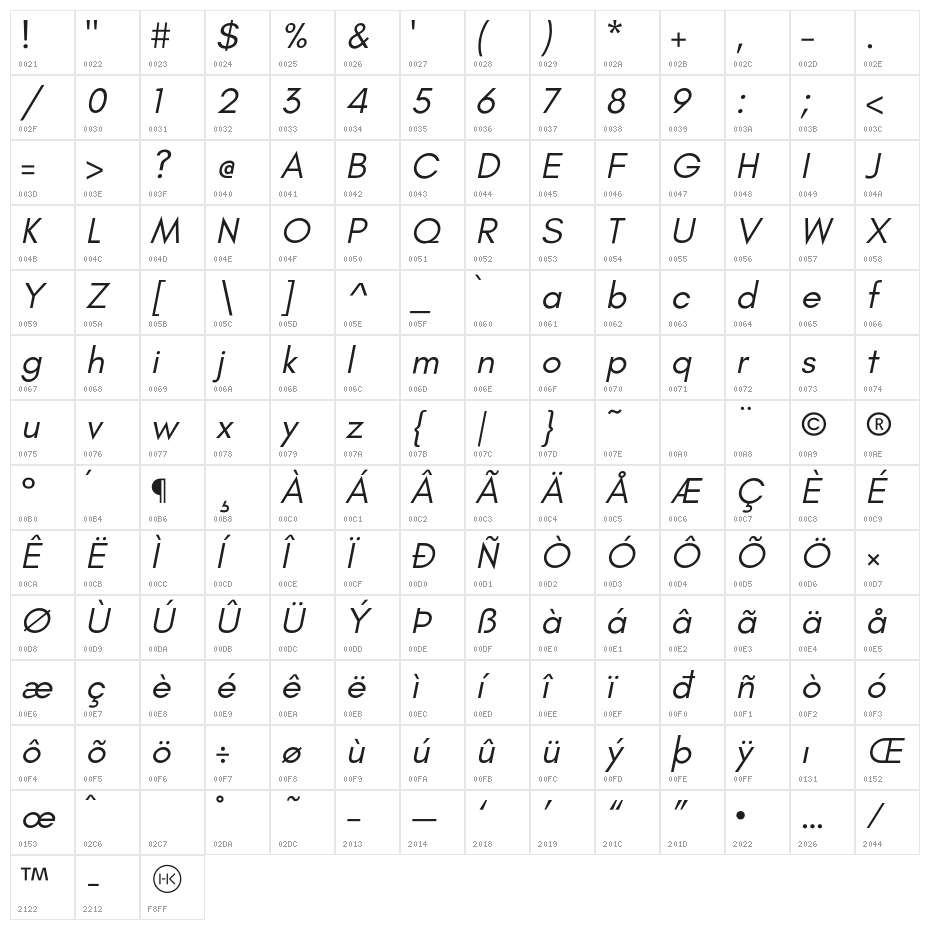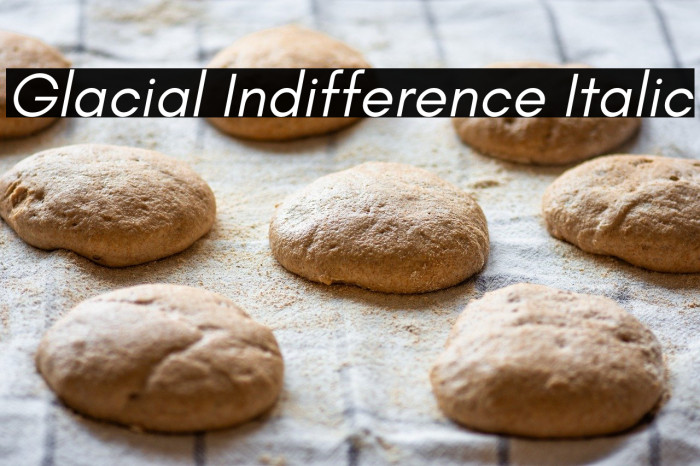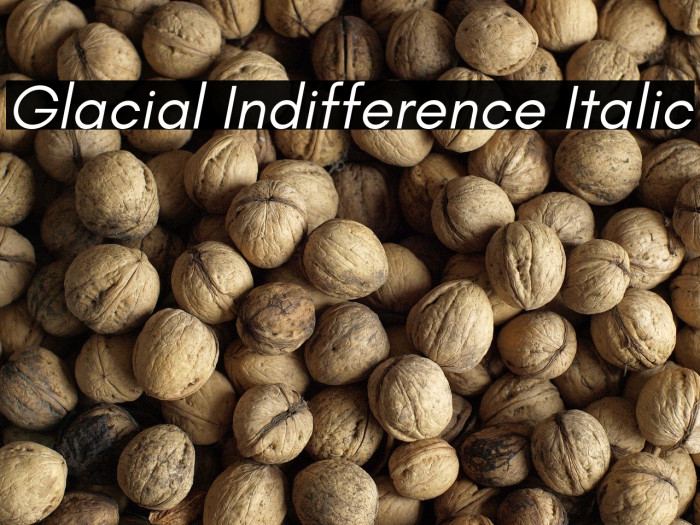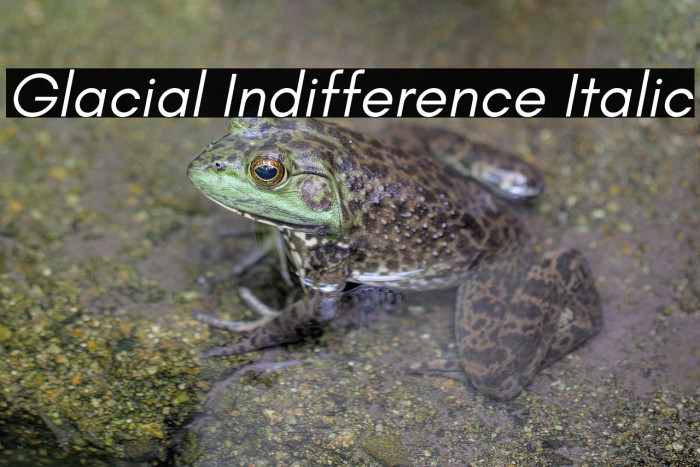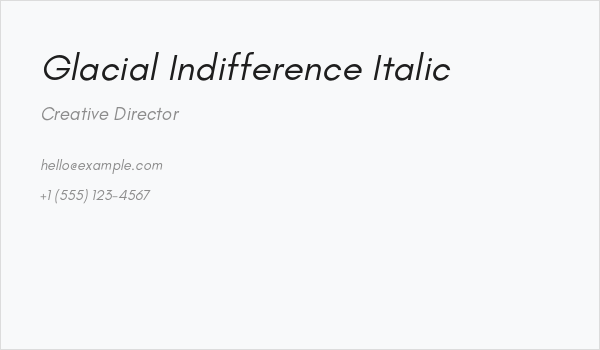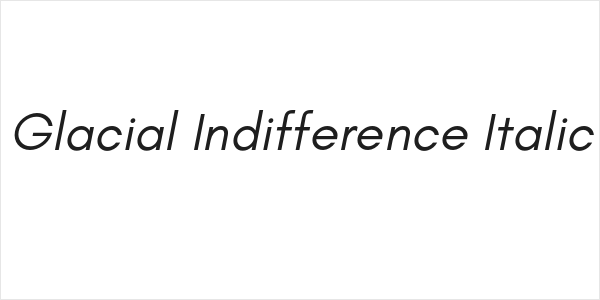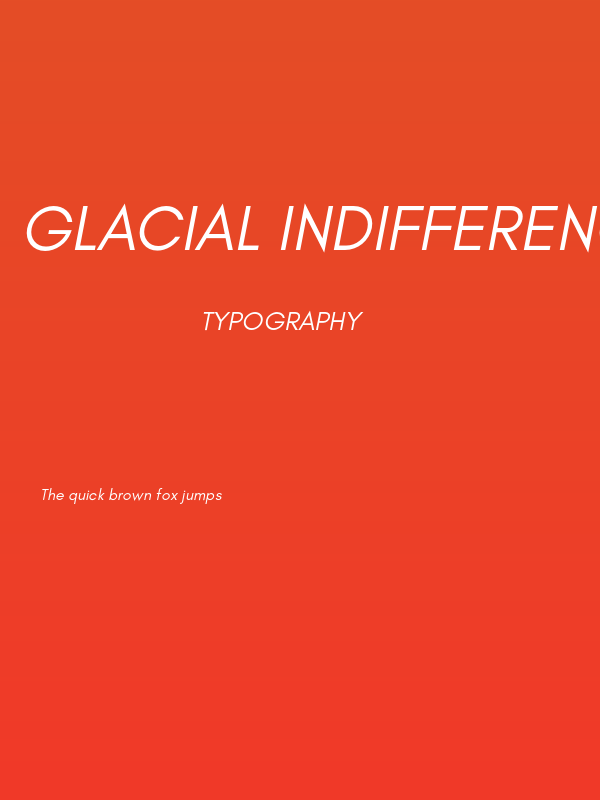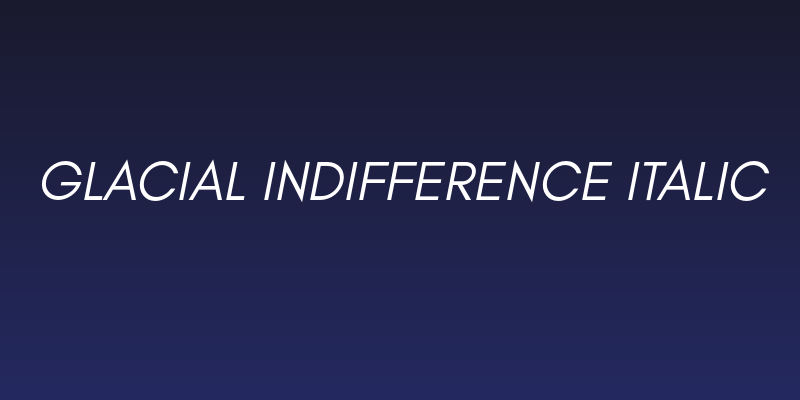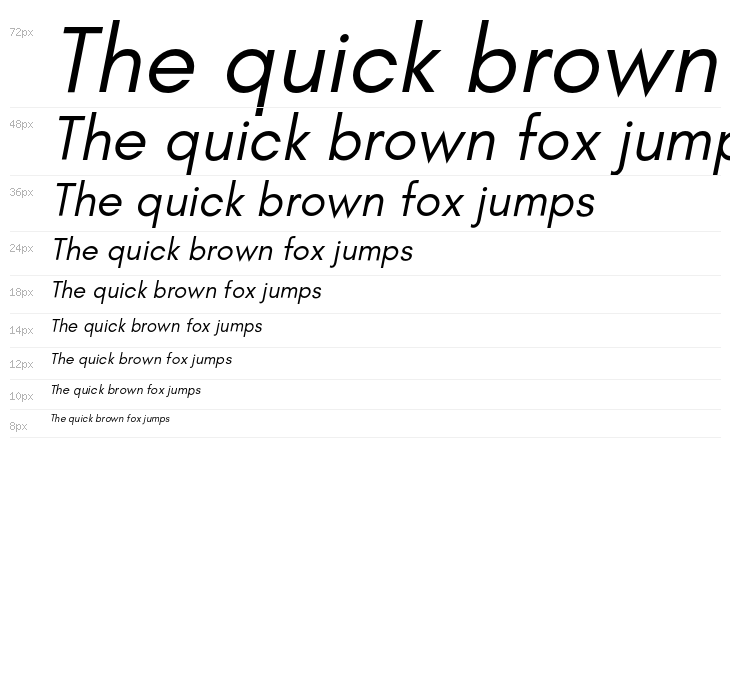
Glacial Indifference Italic Font
Glacial Indifference Italic Description
This typeface features a clean and modern sans-serif design with a subtle italic slant, giving it a sleek and contemporary appearance. The characters are well-proportioned, with a consistent stroke width that provides a balanced and harmonious look. The uppercase letters are bold and assertive, while the lowercase letters maintain a friendly and approachable feel. The numerals are clear and legible, making them suitable for various applications. The special characters are well-integrated, ensuring versatility in design projects. Overall, this font exudes a sense of professionalism and modernity, making it ideal for a wide range of uses.
| Proposed Projects | Ideal for branding, advertising, web design, and editorial projects where a modern and professional look is desired. |